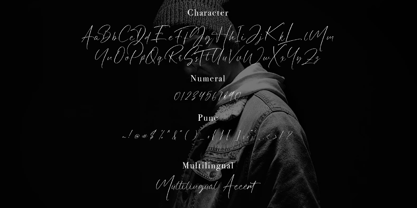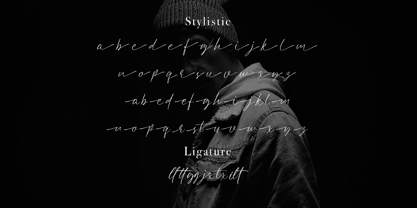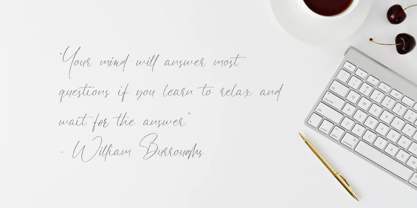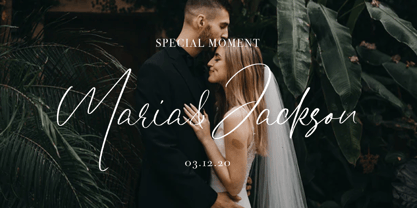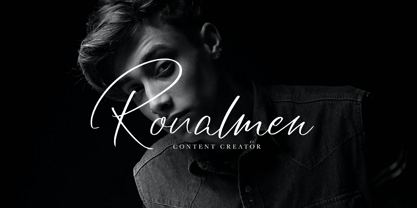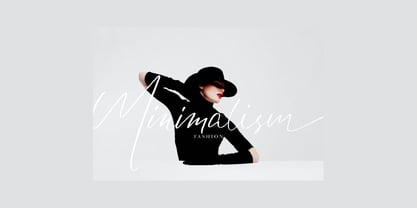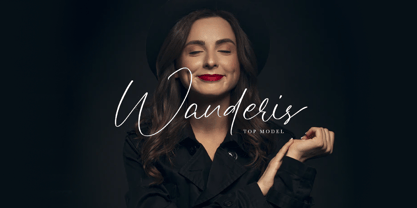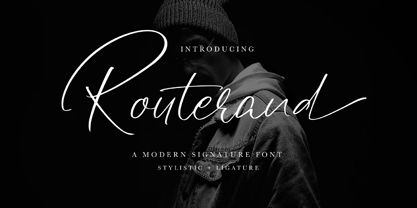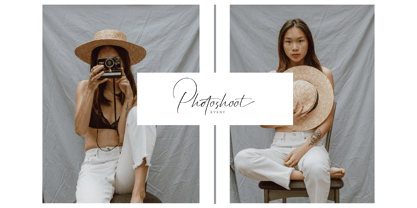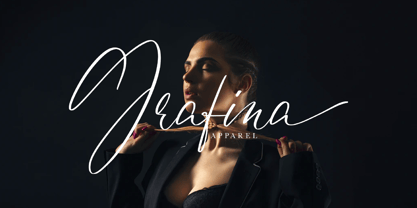
Routerand
by Rockboys Studio
The Routerand Font Family was designed by Hayinah and published by Rockboys Studio. Routerand contains 1 styles.
Routerand is a modern signature font that captures the essence of effortless style and authenticity. With its fluid strokes and natural handwriting flow, Routerand brings a personal touch to any design. This font is ideal for signature logos, fashion branding, social media posts, photography watermarks, and editorial designs that demand a handwritten aesthetic with a modern twist. Its elegant yet relaxed character gives your projects a distinctive, high-end feel.
Routerand features a complete set of uppercase and lowercase letters, punctuation, numerals, and multilingual support. It also includes stylistic alternates and ligatures, offering flexibility and customizability to suit various design needs. Whether you're crafting a personal brand or curating stylish visuals, Routerand adds a refined signature charm that stands out with confidence.